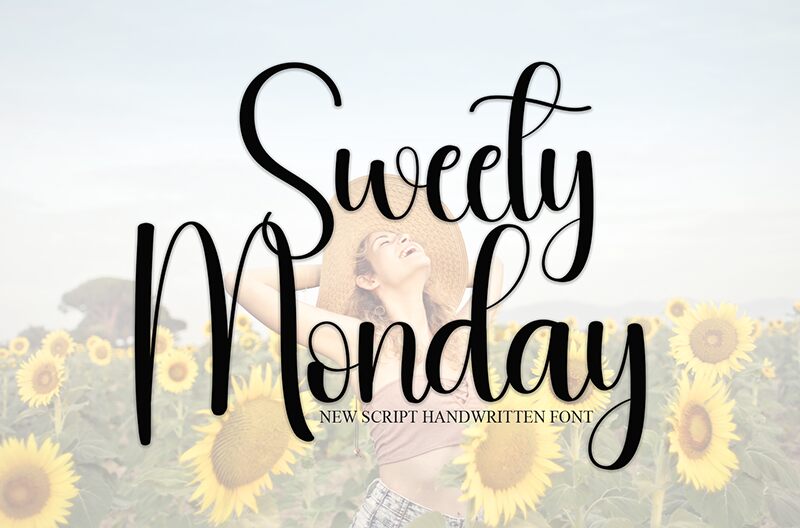
Sweety Monday
Sweety Monday font by Andi Moz is a free calligraphy font with a whimsical, elegant, and flowing design. It has a hand-drawn feel that exudes warmth and charm, making it perfectly romantic and expressive. It’s graceful appearance makes it an exceptional choice for any work that requires classic beauty.
Use this font in wedding invitations, greeting cards, photography projects, logos, branding designs, book covers and page layouts. More uses include stationery design ideas such as planners or journals as well as online uses like blog titles or social media posts.